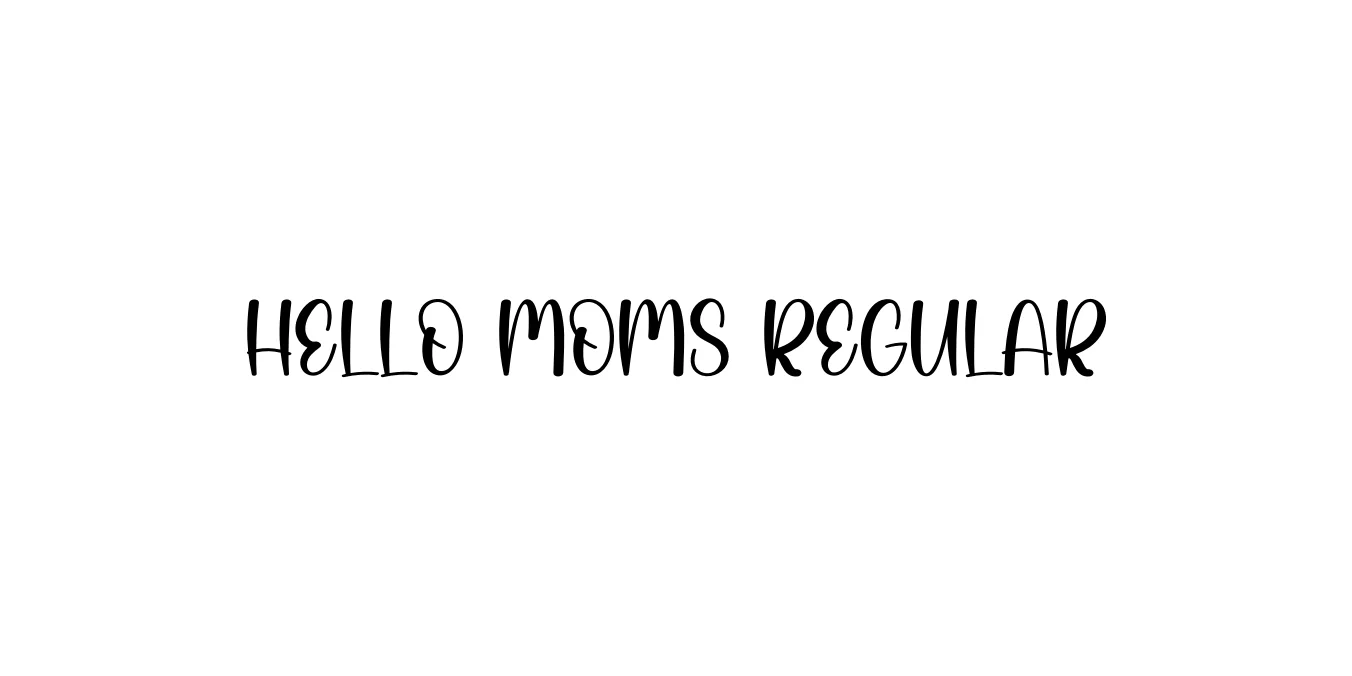
Hello Moms Regular
Designed by Typeline Studio
Hello Moms Regular is a sophisticated and charming brush script font that captures the essence of modern calligraphy with a touch of personal warmth. Designed by Typeline Studio, this typeface features fluid, hand-drawn strokes and elegant ligatures that create a seamless flow between characters. Its aesthetic is rooted in the popular contemporary script movement, balancing playful energy with professional execution to provide a versatile tool for digital and print designers alike.
The font is particularly noted for its organic feel and high legibility, making it an excellent choice for emotive branding and high-end stationery. Whether used for a heartfelt greeting card or a trendy social media campaign, Hello Moms Regular provides a distinct, handcrafted look that avoids the clinical feel of traditional sans-serifs, ensuring your message feels authentic and uniquely human.
Hello Moms Regular Best Uses
Perfect for adding a romantic and personal touch to wedding suites and RSVP cards.
Ideal for boutique logos, signature branding, and beauty product packaging.
Adds a heartfelt, handcrafted aesthetic to holiday and birthday cards.
Great for creating high-impact quotes and lifestyle content on platforms like Instagram and Pinterest.